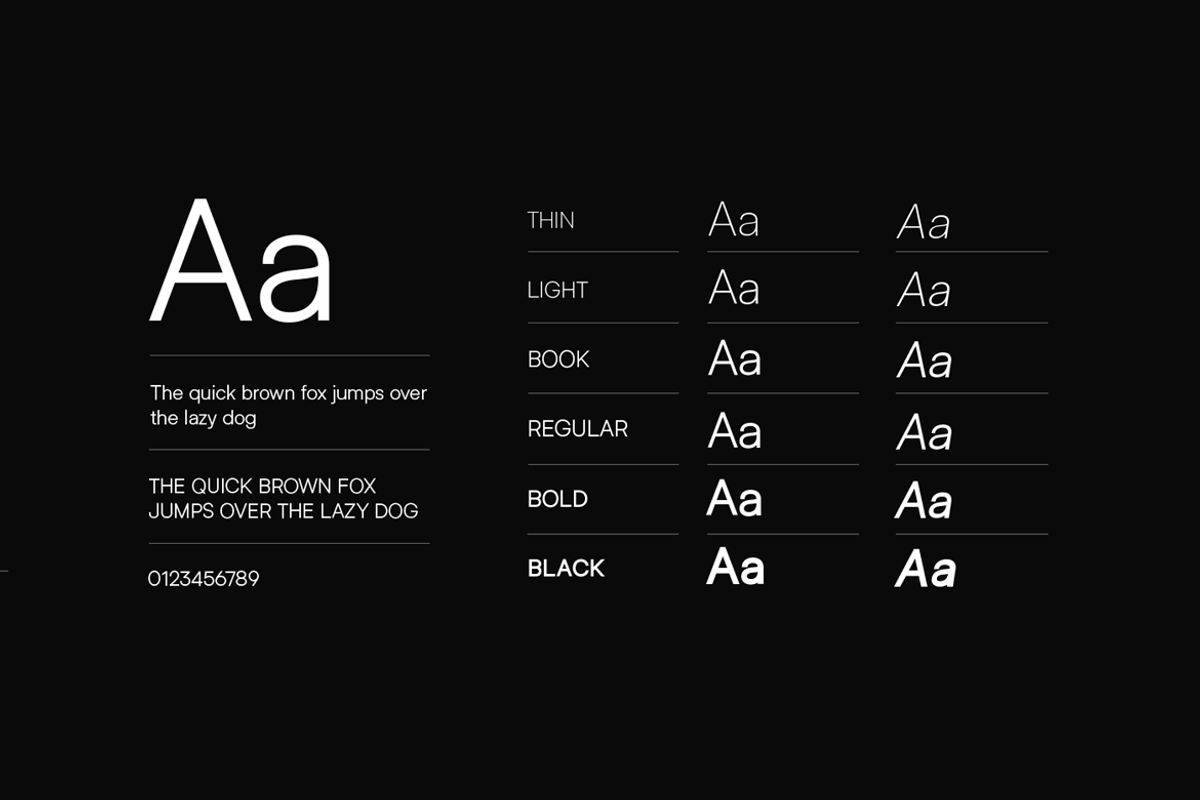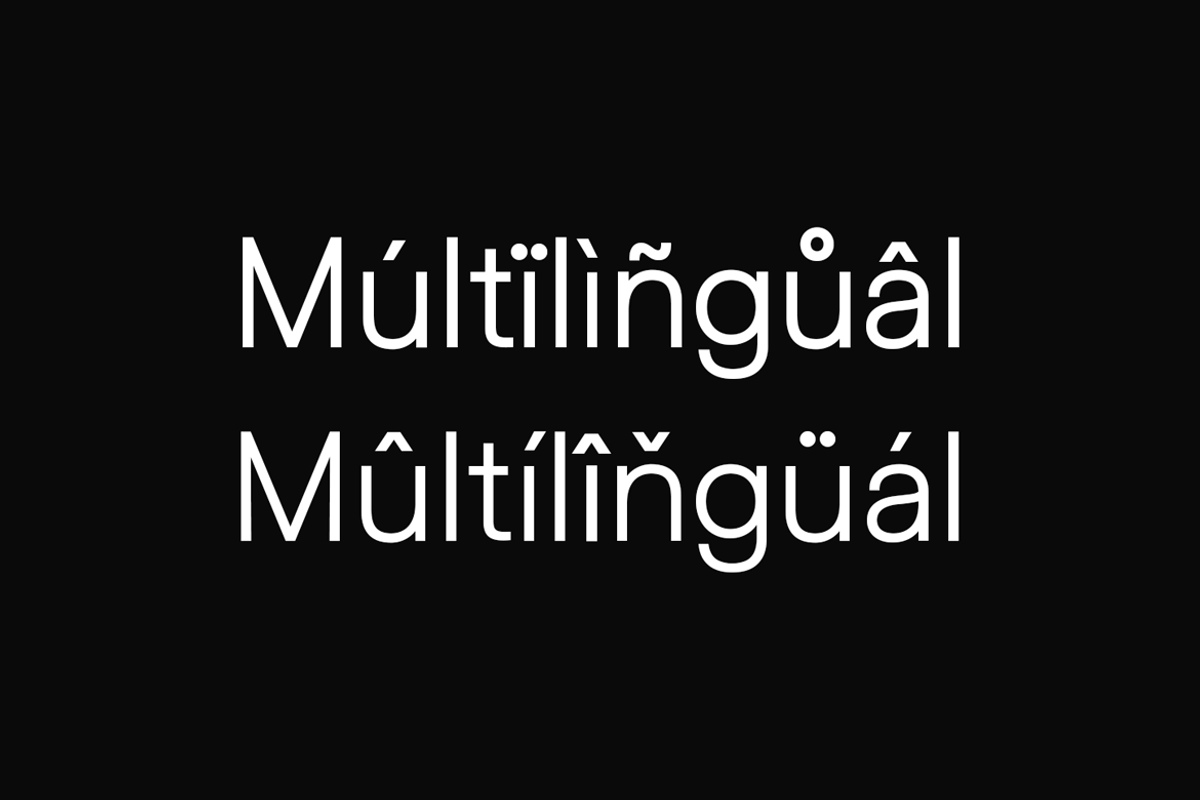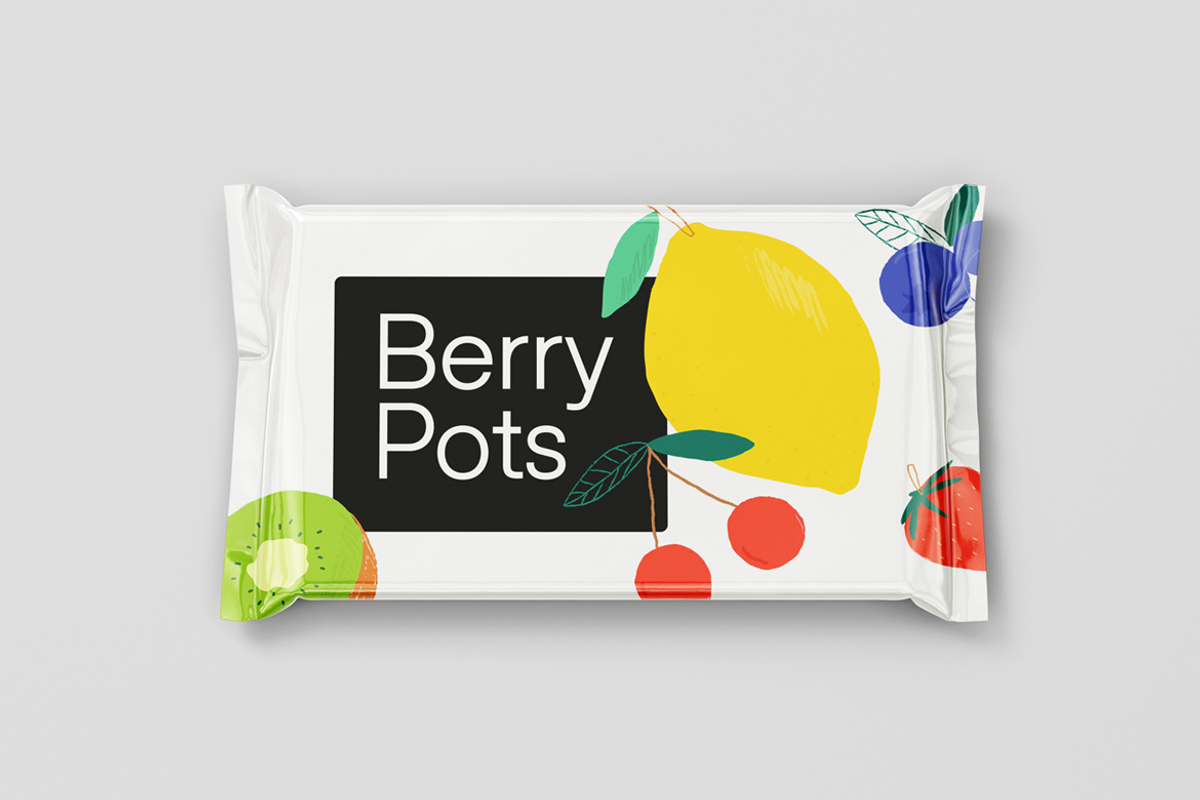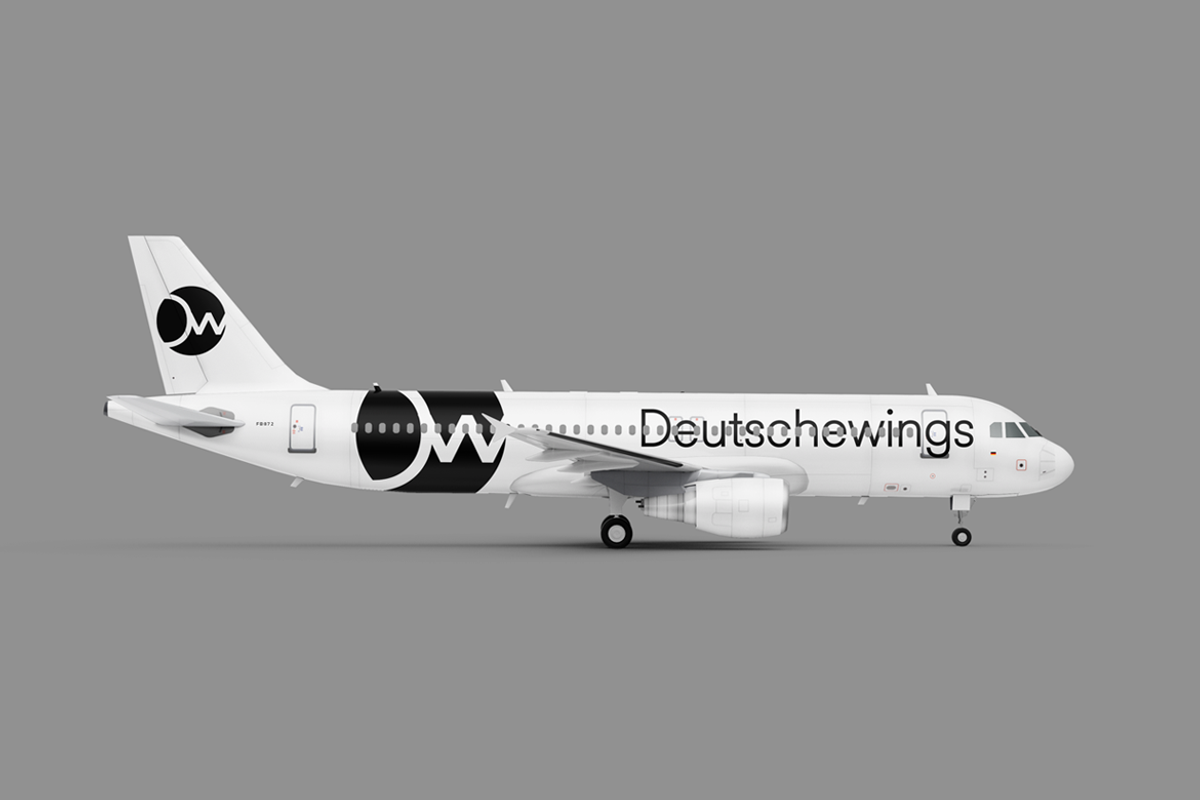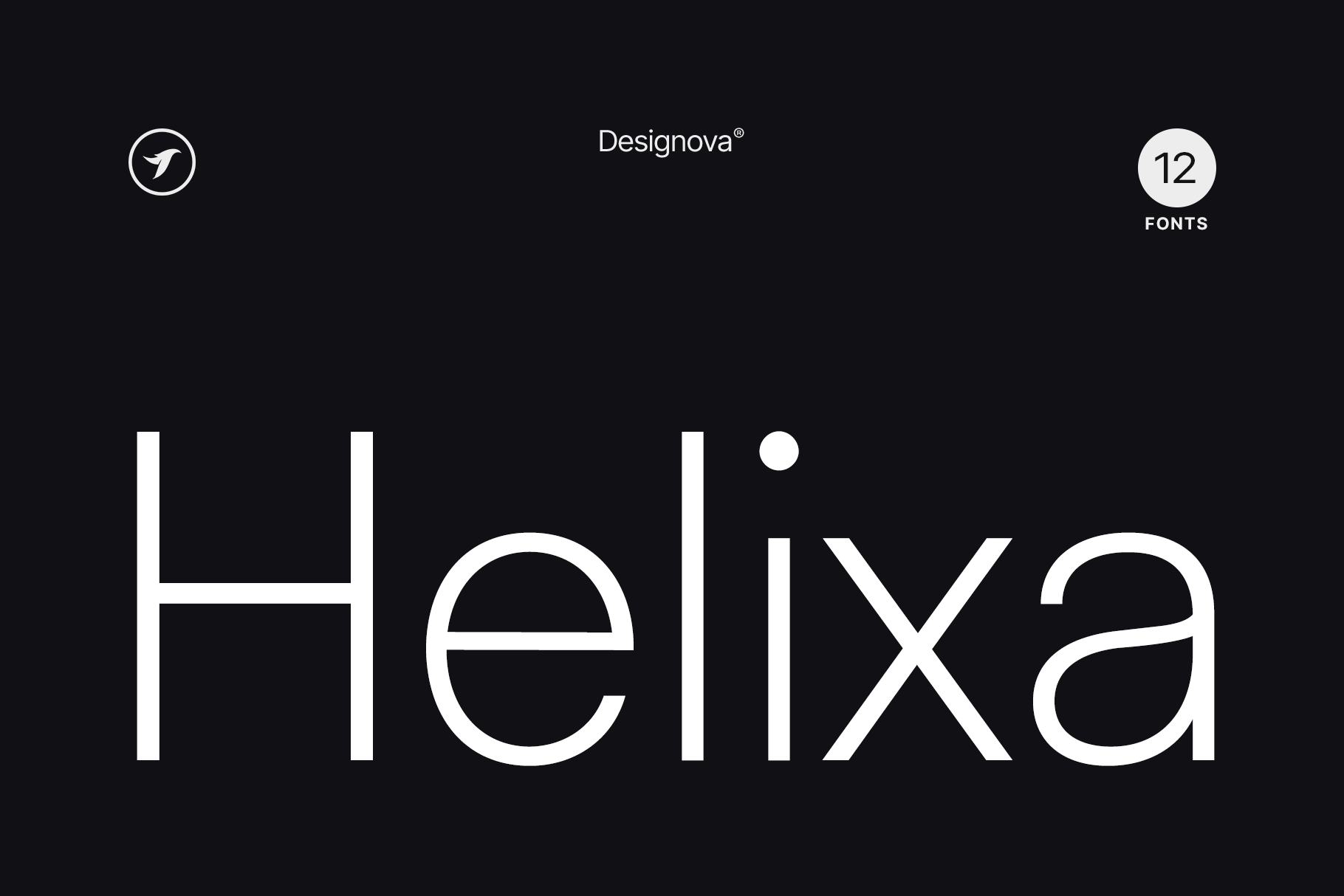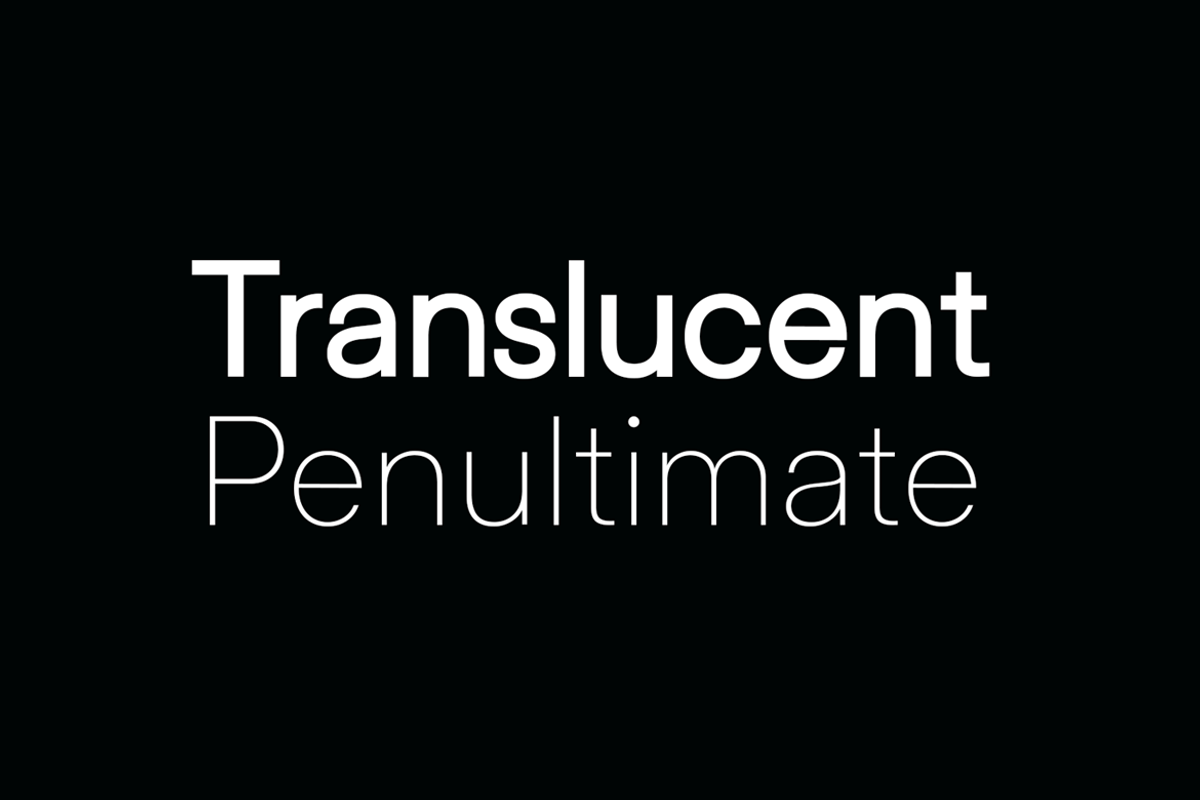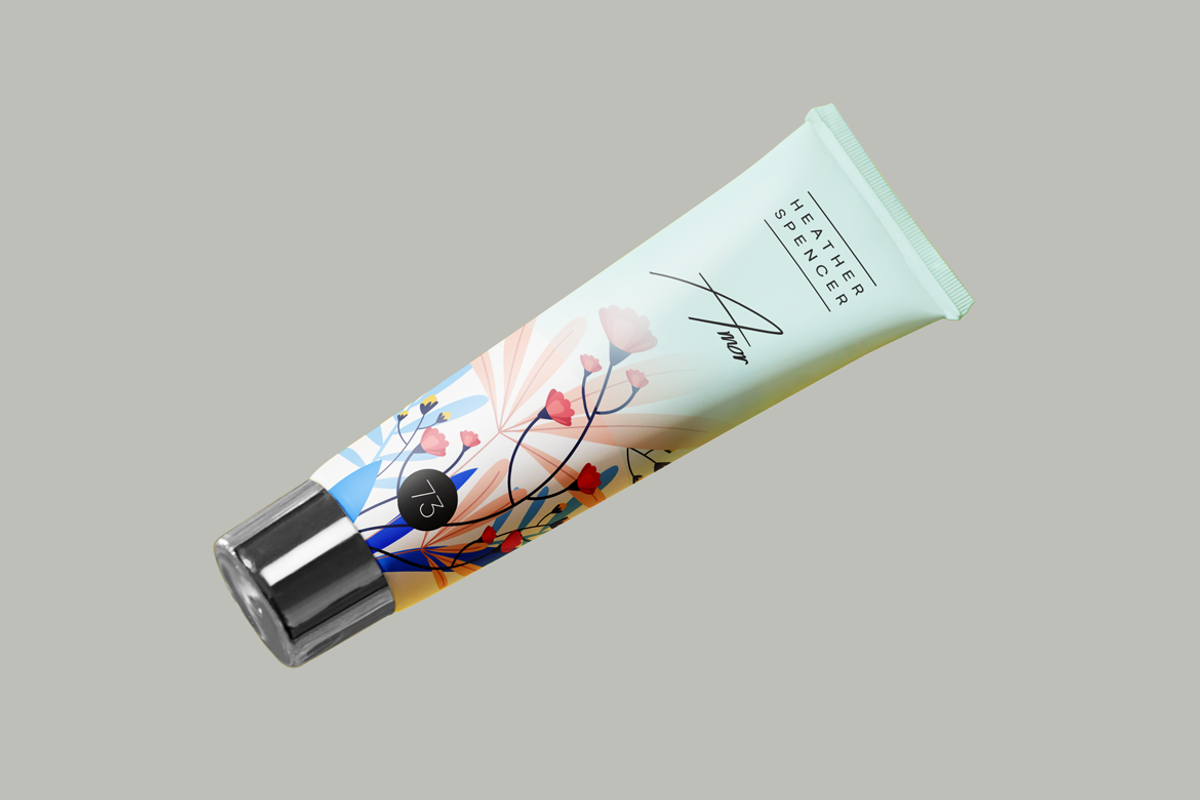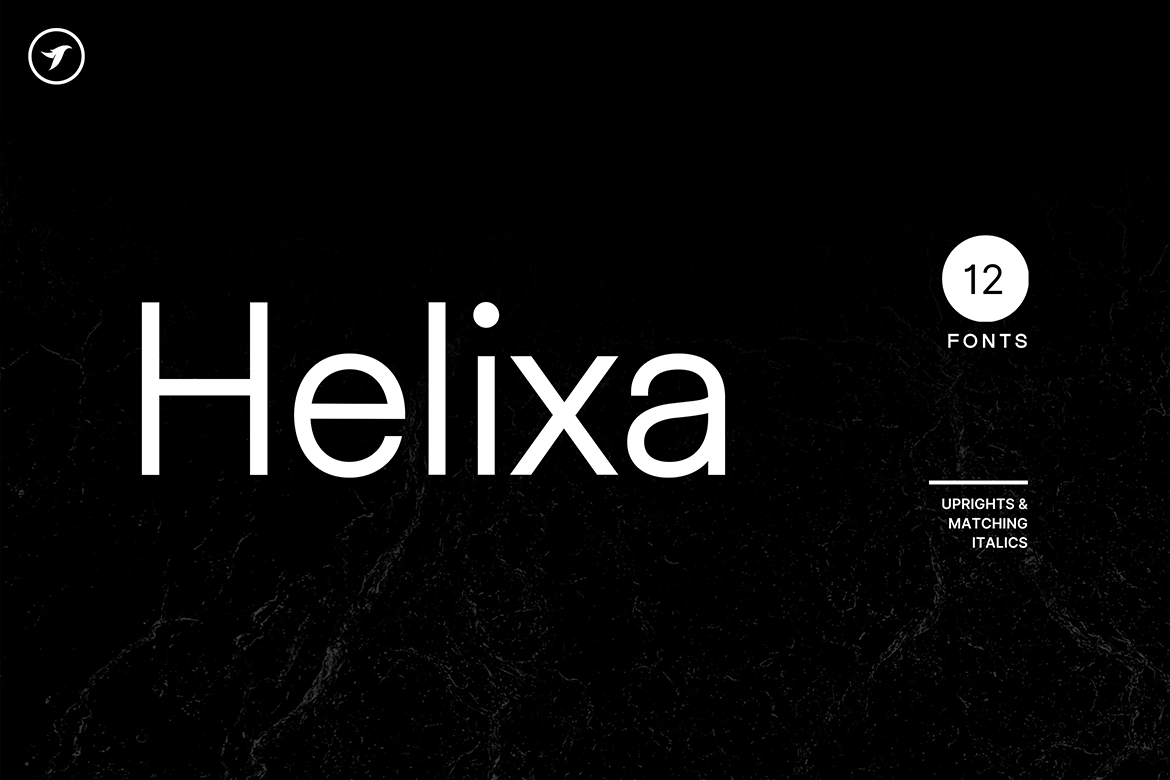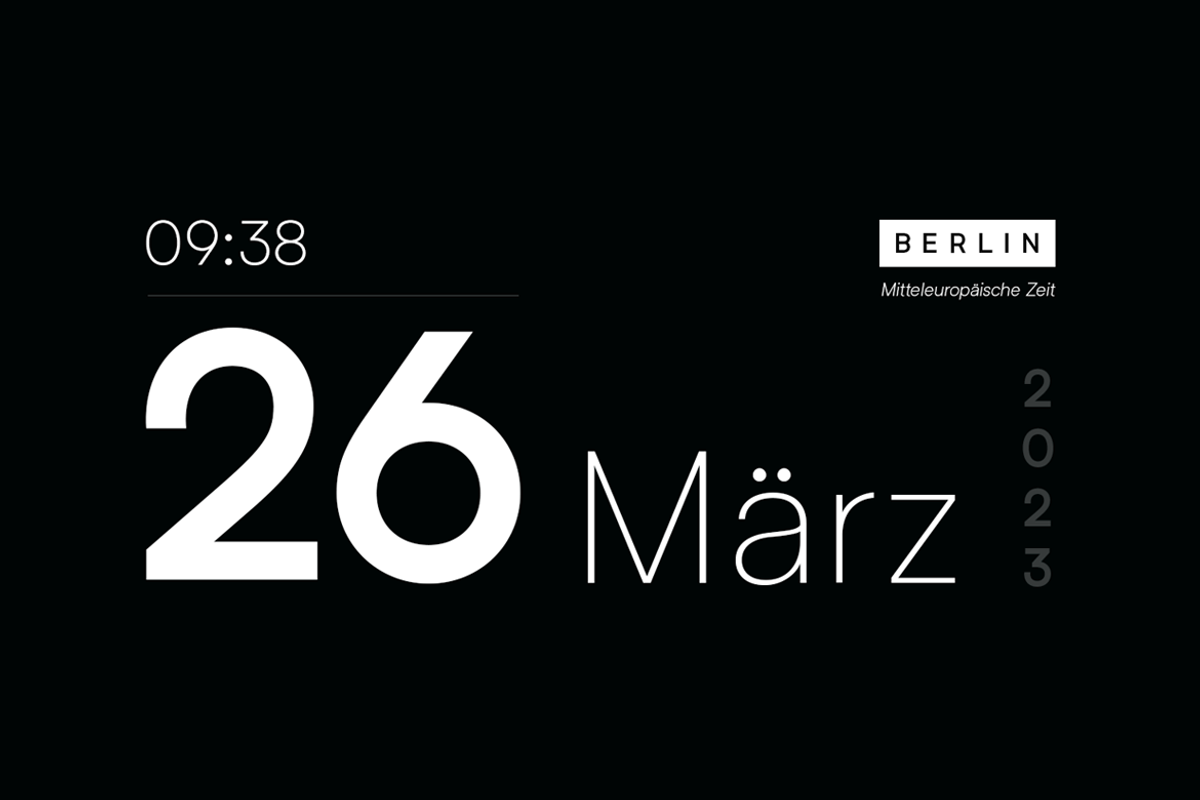
HELIXA - Clean & Modern Font Family
ABOUT THE TYPEFACE:
Helixa is a neo-grotesque typeface with a clean & modern design and an enduring appearance. This is a perfect choice for creating logotypes, branding, headlines, corporate identities, and marketing materials for web, digital and print alike.
The typeface will be a great option for branding, logo/logotype design projects, marketing graphics, banners, posters, signage, corporate identities, and editorial design. Adding extra letter spacing will make this font the perfect choice for minimal headlines and logotypes, as shown in the promo designs attached.
Handcrafted and designed with powerful OpenType features in mind, each weight includes extended language support with Western European, Central European, and South Eastern European sets. A total of 300 glyphs are available.
Helixa font family includes a collection of 12 fonts in total, with six upright weights and Italic equivalents of all six weights as follows:
Thin
Thin Italic
Light
Light Italic
Book
Book Italic
Italic
Bold
Bold Italic
Heavy
Heavy Italic